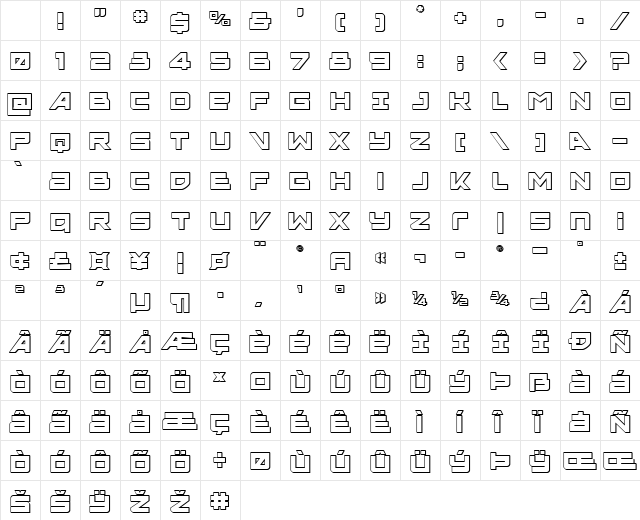
Complete Ace of Swords 3D Regular glyph index. Displaying only characters natively supported by Ace of Swords 3D Regular font.
Ace of Swords 3D is a composed and adaptable typeface that performs quietly and consistently across a wide range of design contexts.